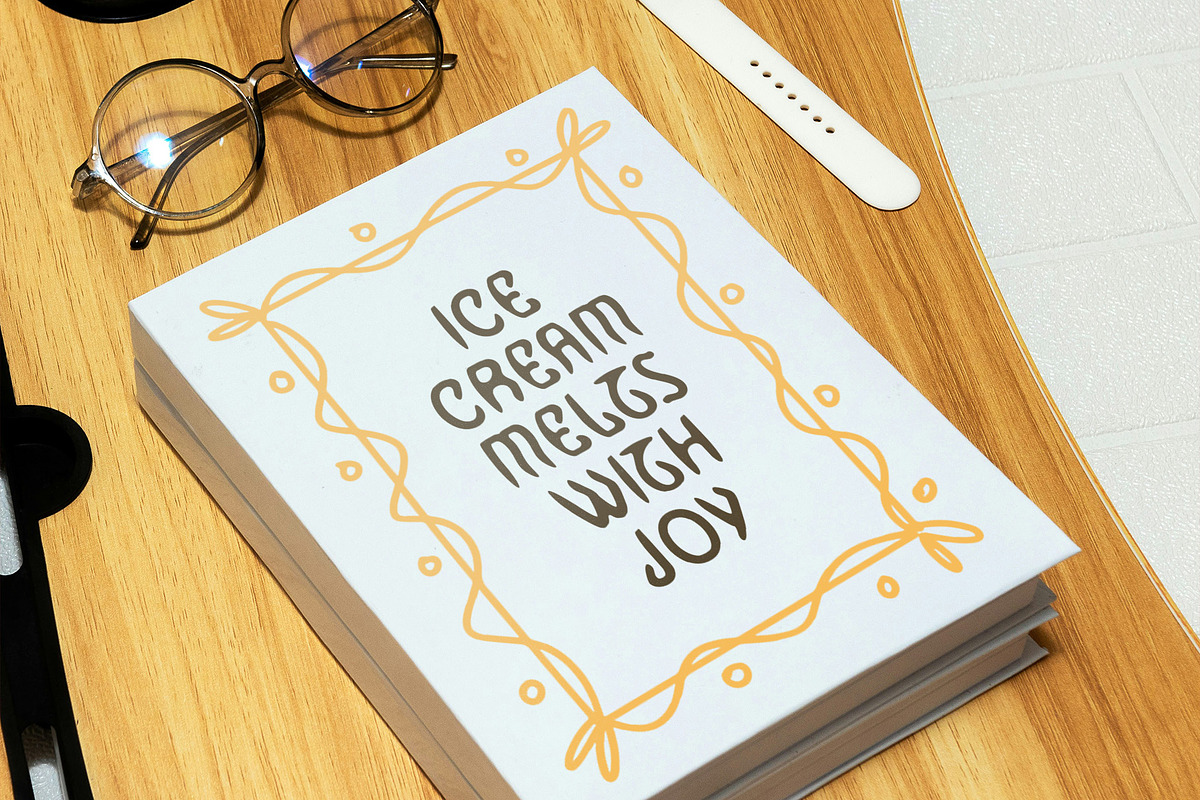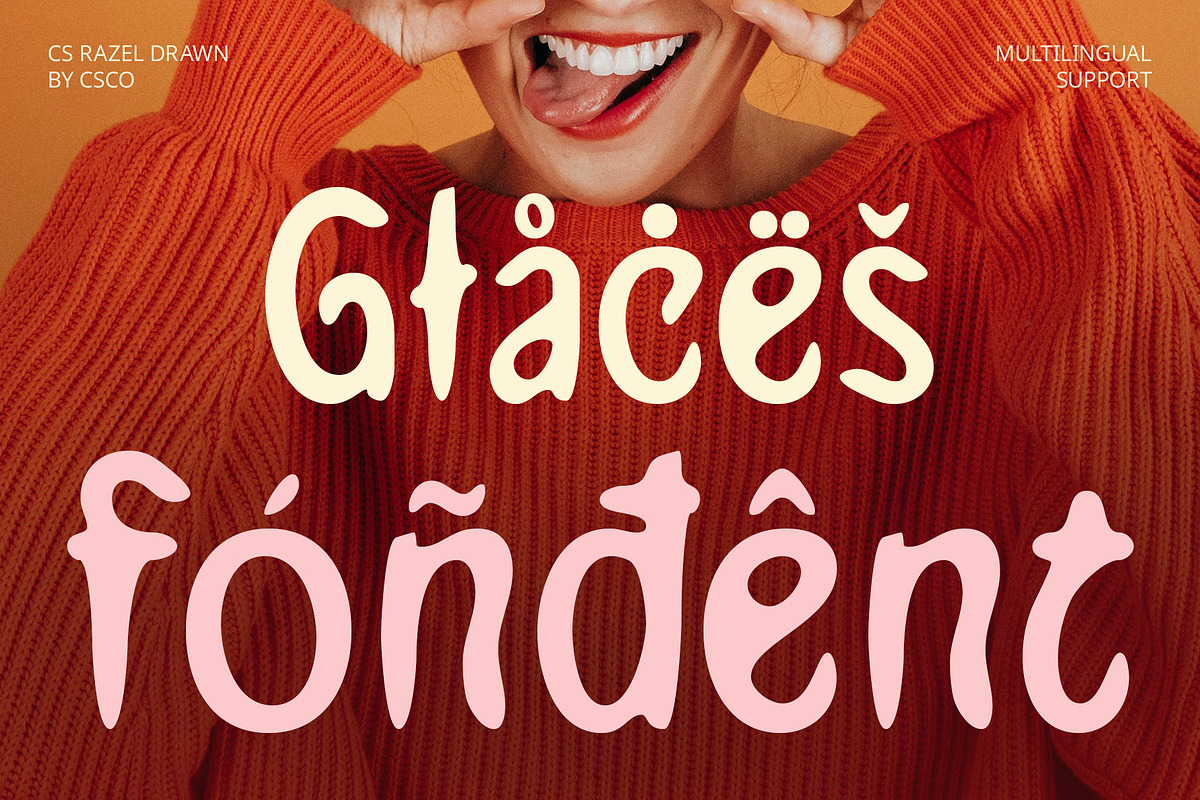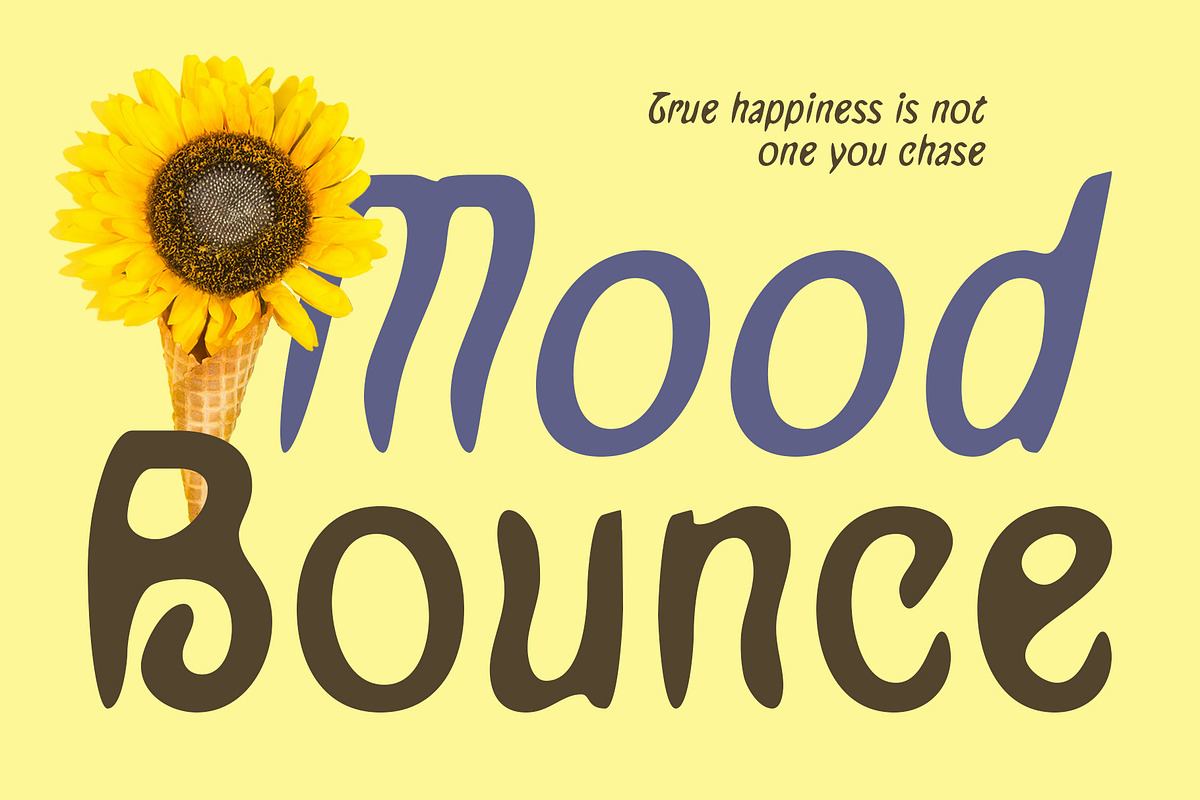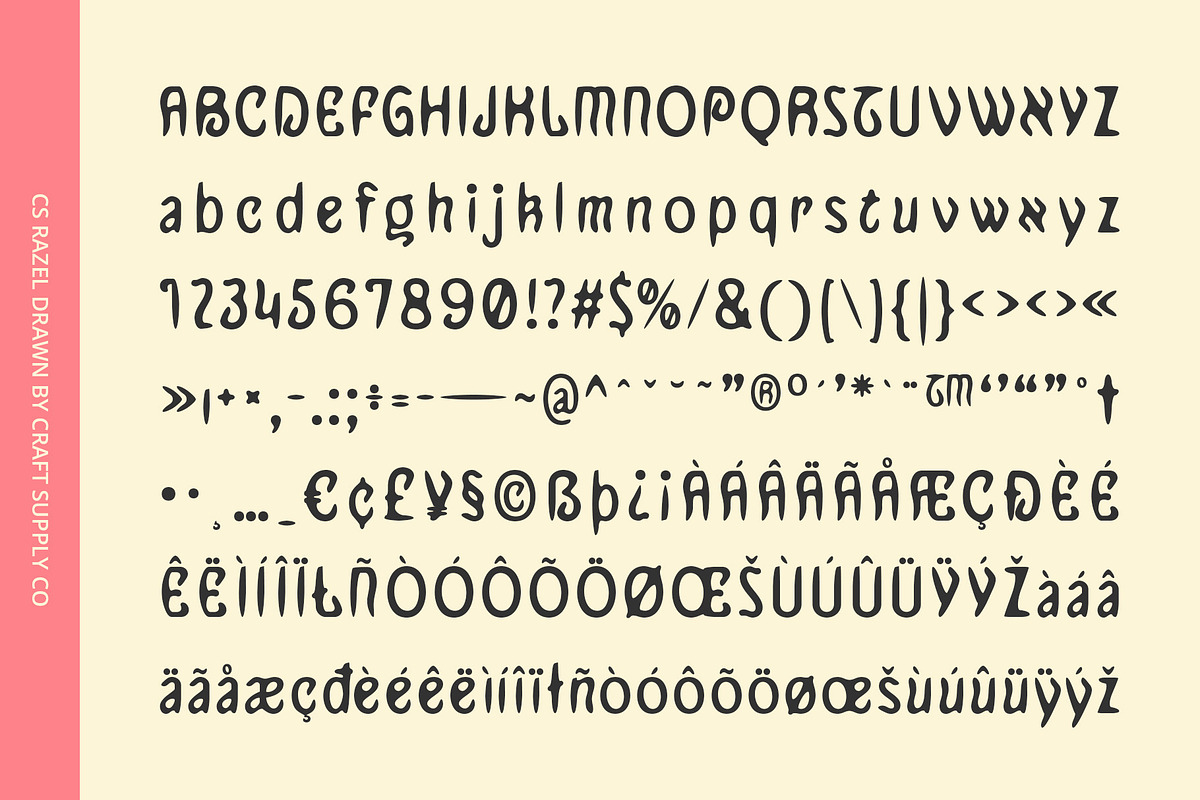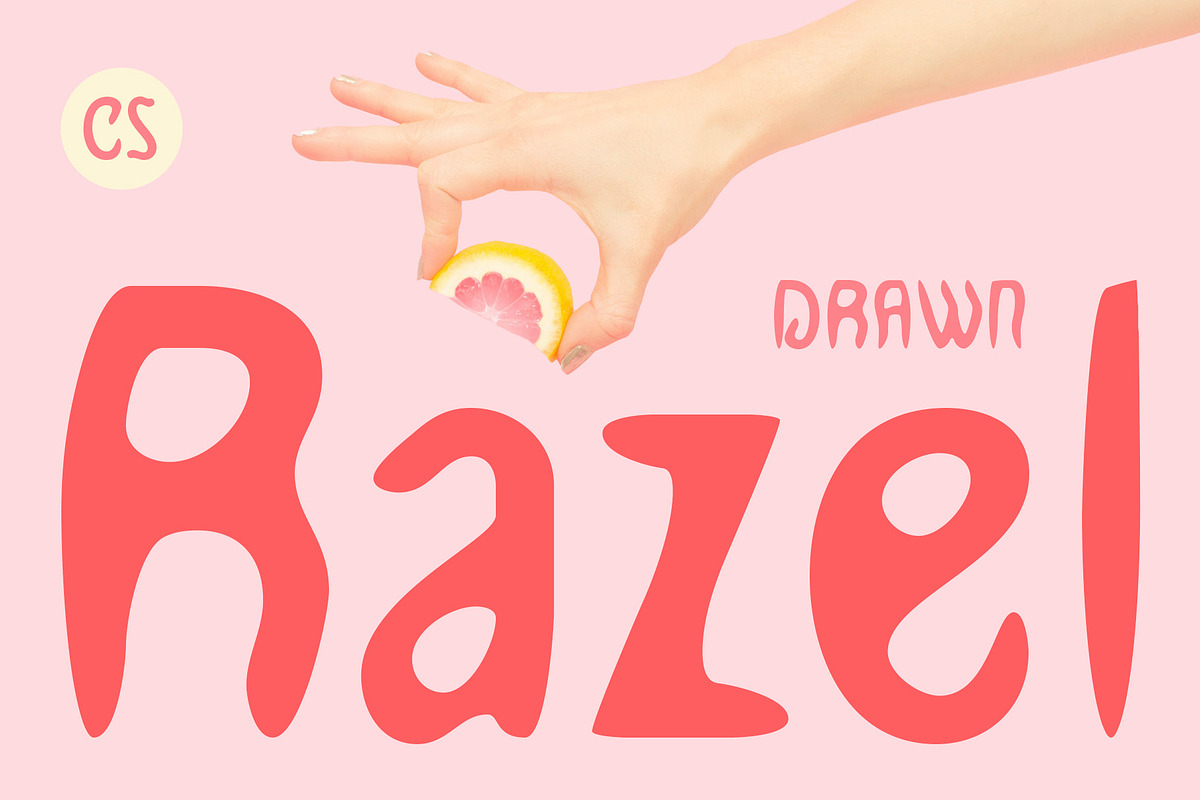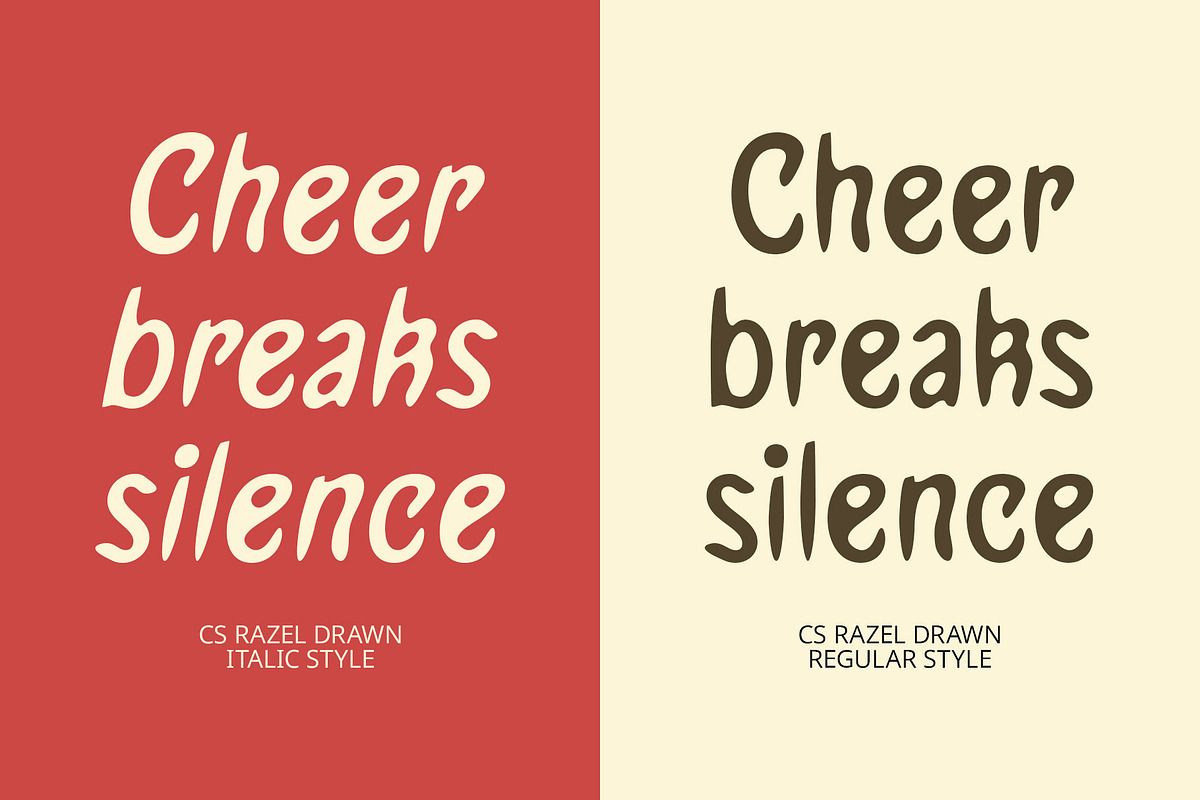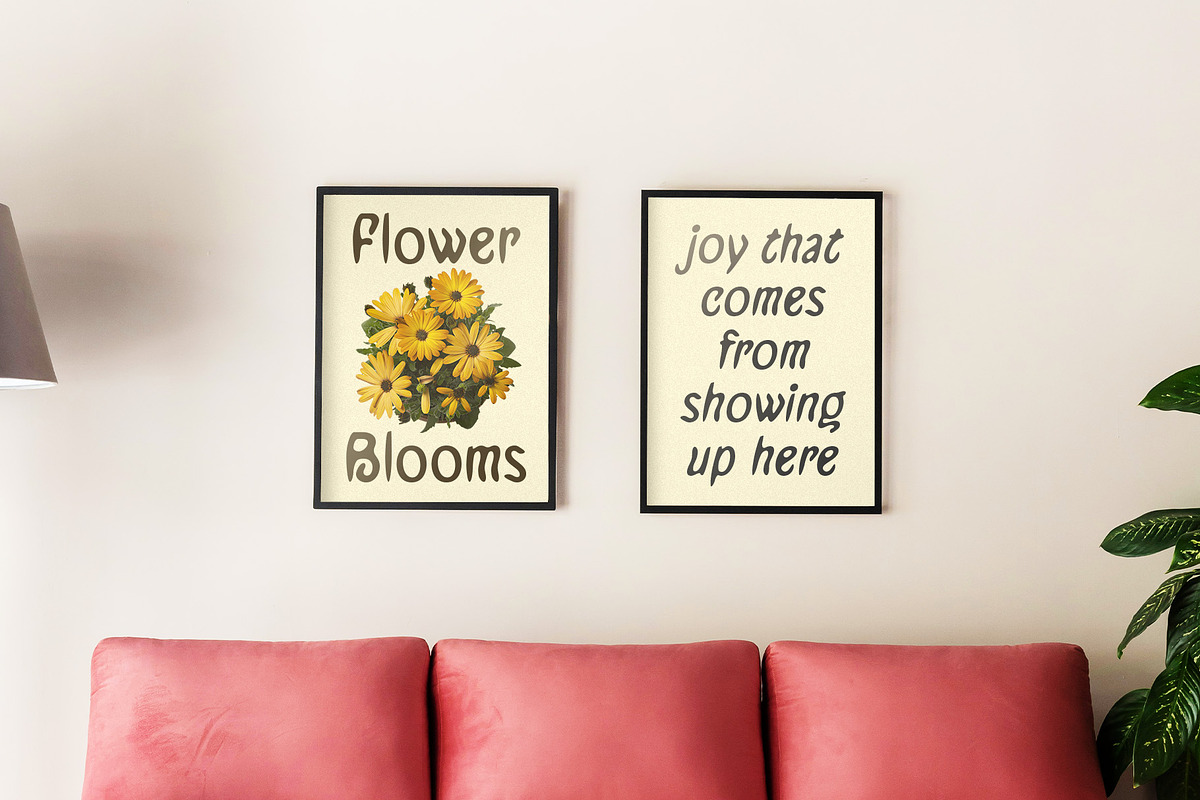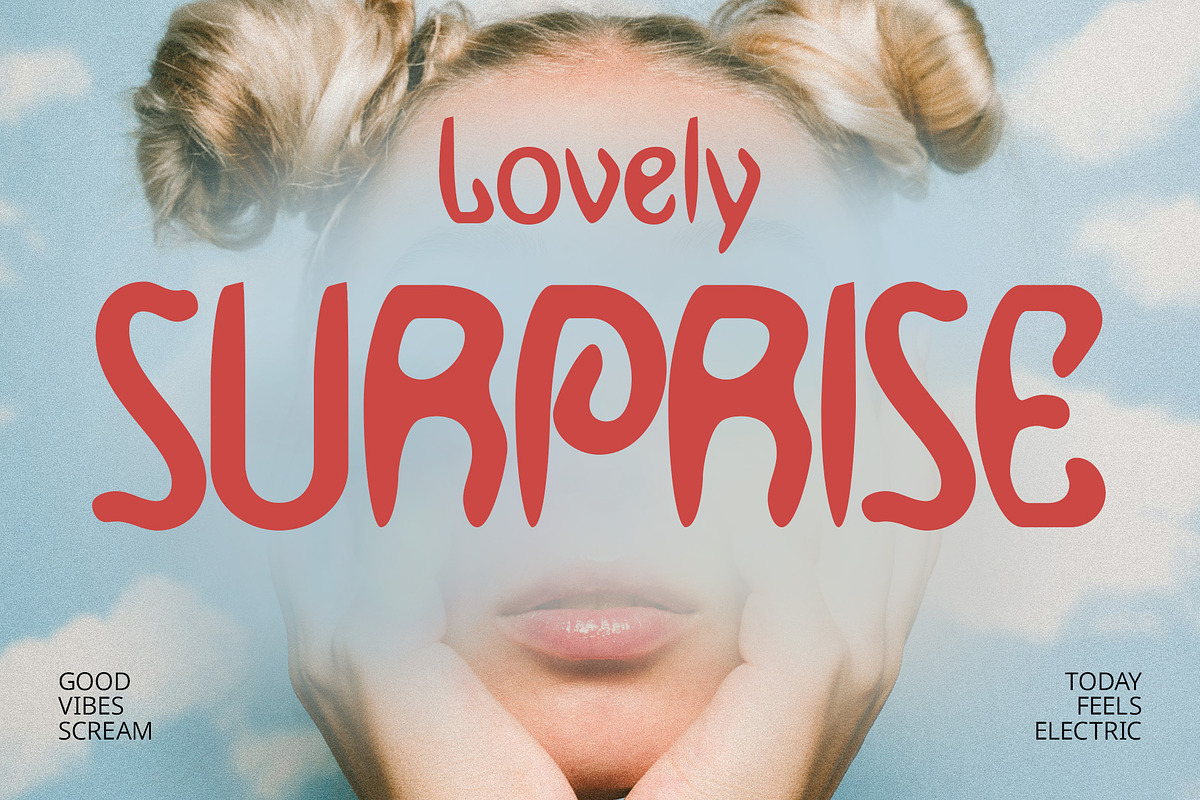
CS Razel Drawn
CS Razel Drawn – Where Art Nouveau Grace Meets Handcrafted Modernity
Modern Sans Serif with Art Nouveau Elegance CS Razel Drawn is a modern sans serif display font inspired by the timeless beauty of Art Nouveau design. Its graceful curves, ornamental lines, and refined structure reflect the charm of the late 19th-century aesthetic, reimagined through a contemporary lens.
Drawn Effect for Organic, Personal Texture Enhanced with a drawn effect, Razel gains a unique handmade quality that softens its form and adds a layer of artisanal warmth. The subtle irregularities and sketch-like texture lend a human touch to its decorative curves, making the font feel expressive, personal, and full of character—ideal for designs seeking visual depth and authenticity.
Balance of Structure and Ornamentation Razel Drawn carefully balances the clean structure of a sans serif font with the flair of flowing, artistic detailing. This blend results in a typeface that is both decorative and functional, making it well-suited for display purposes while maintaining a legible, elegant form. It’s versatile enough to elevate any layout while adding its own distinctive charm.
Perfect for Beauty, Branding, and Feminine Visuals Whether used for beauty packaging, editorial titles, wedding stationery, or creative brand identities, this decorative font captures attention with its classic-meets-modern aesthetic. It’s the ideal choice for projects that want to communicate grace, sophistication, and a touch of handmade artistry.